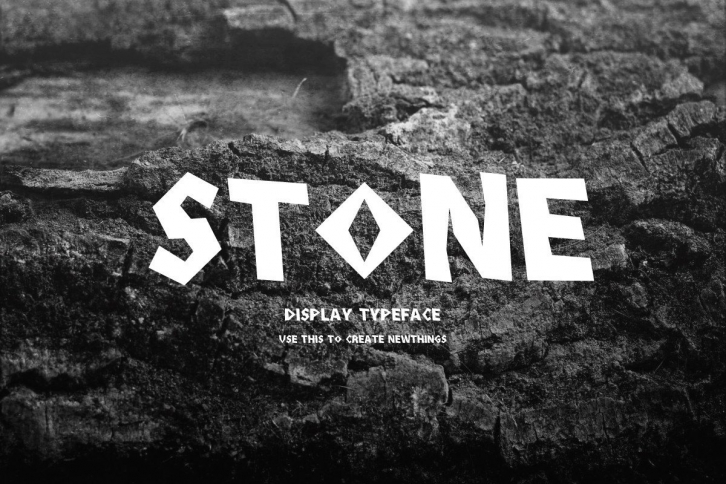
Stone is a strong, bold, geometric display font. Whatever the topic, this font will be a wonderful asset to your font library, as it has the potential to enhance any creation.